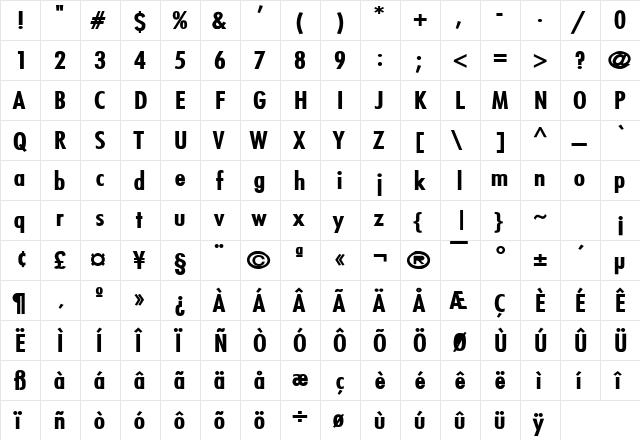
Fuji Wide Bold
Design Context for Fuji Wide Typeface
Fuji Wide is a composed and adaptable typeface that performs quietly and consistently across a wide range of design contexts. Its bold stroke weight gives it real presence on the page.